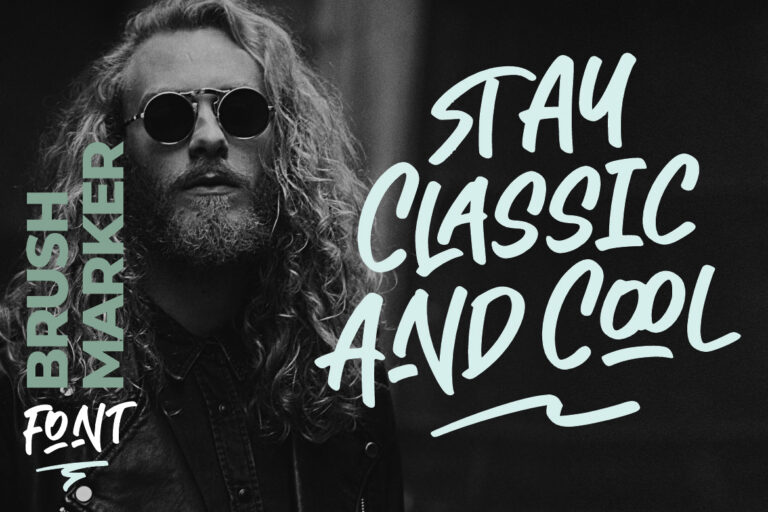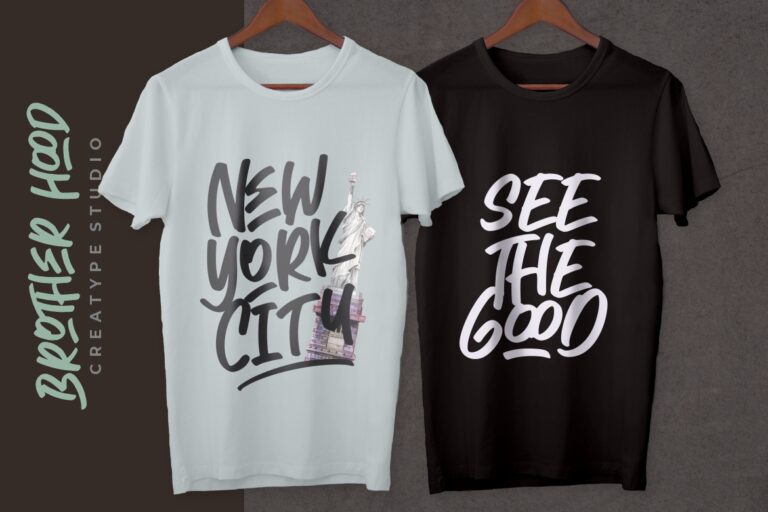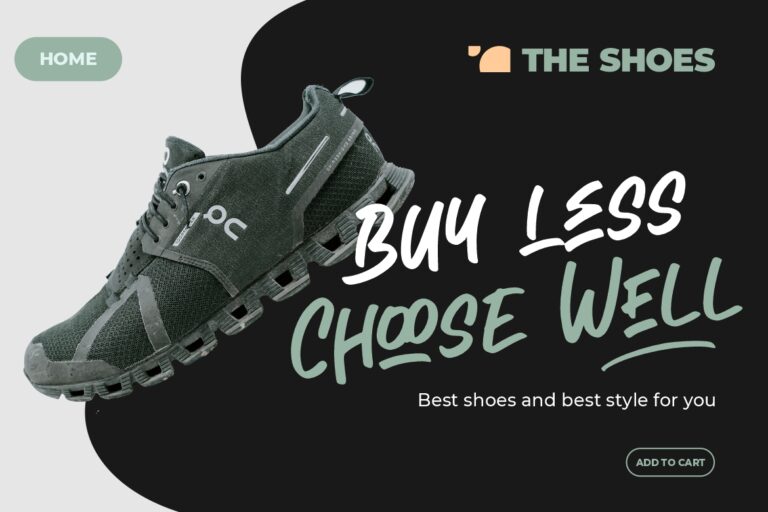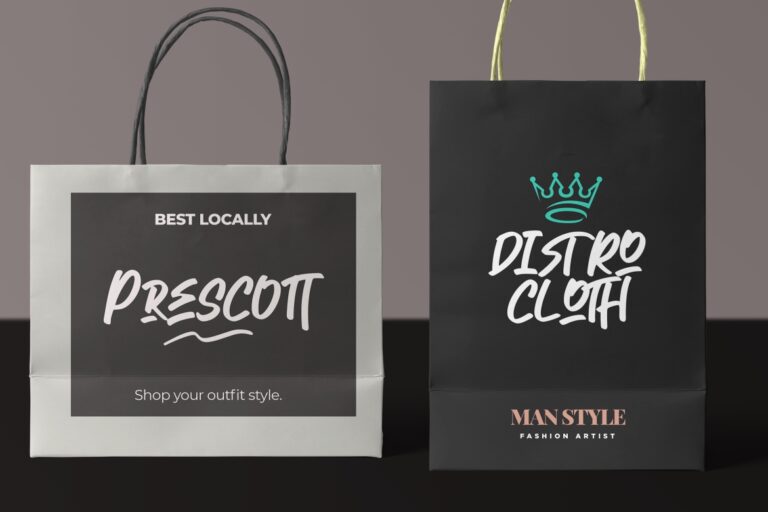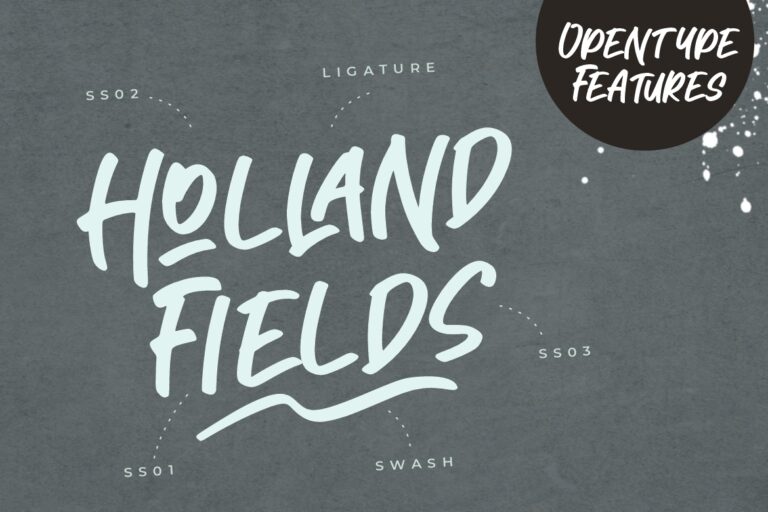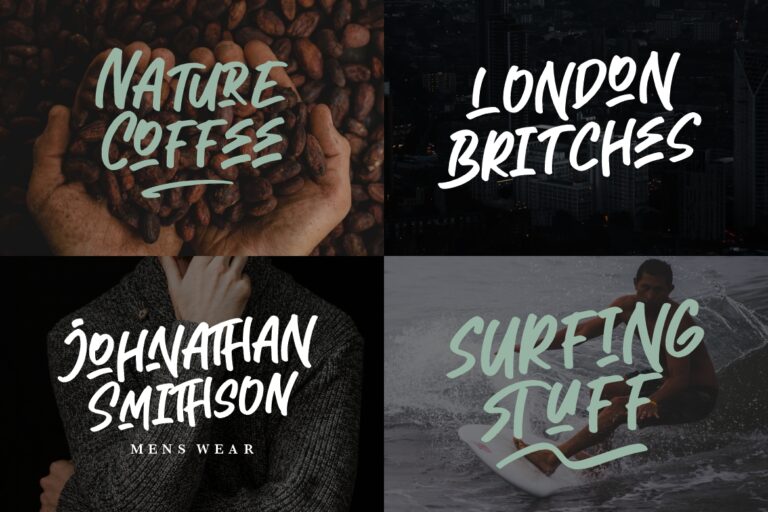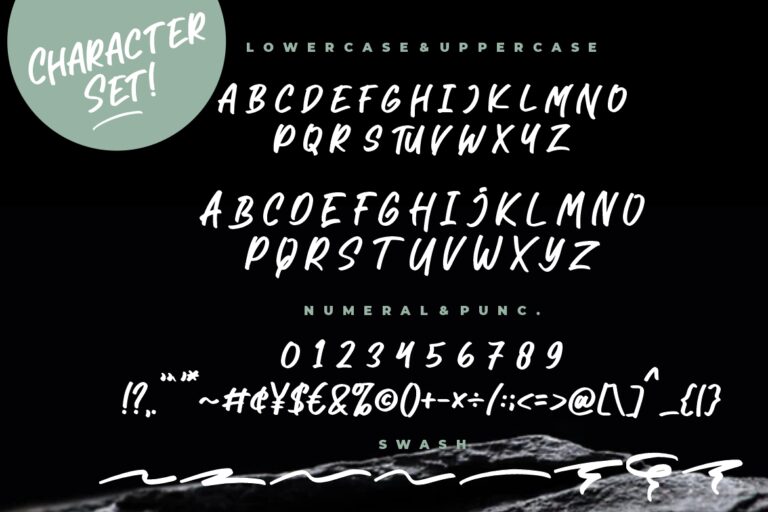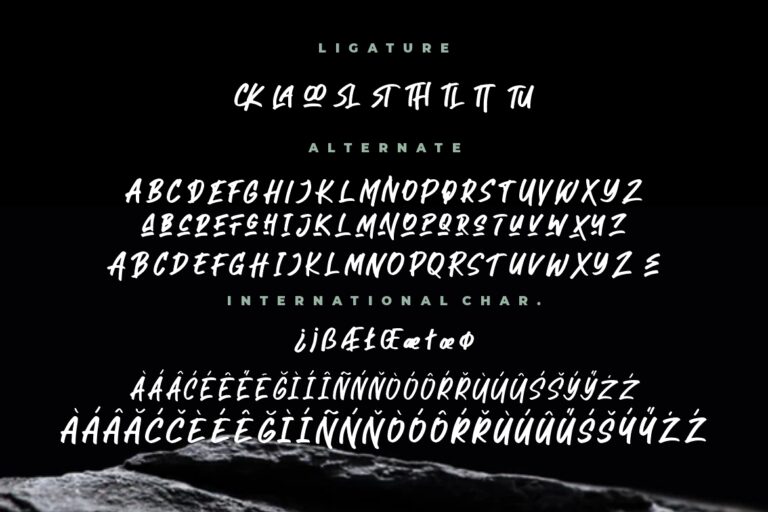
Brotherhood is a brush marker font whit a handmade natural brush that perfect for your project.
Brotherhood is perfect for branding projects, logo, wedding designs, social media posts, advertisements, product packaging, product designs, label, photography, watermark, invitation, stationery and any projects that need handwriting taste.
Brotherhood Brush Marker Font